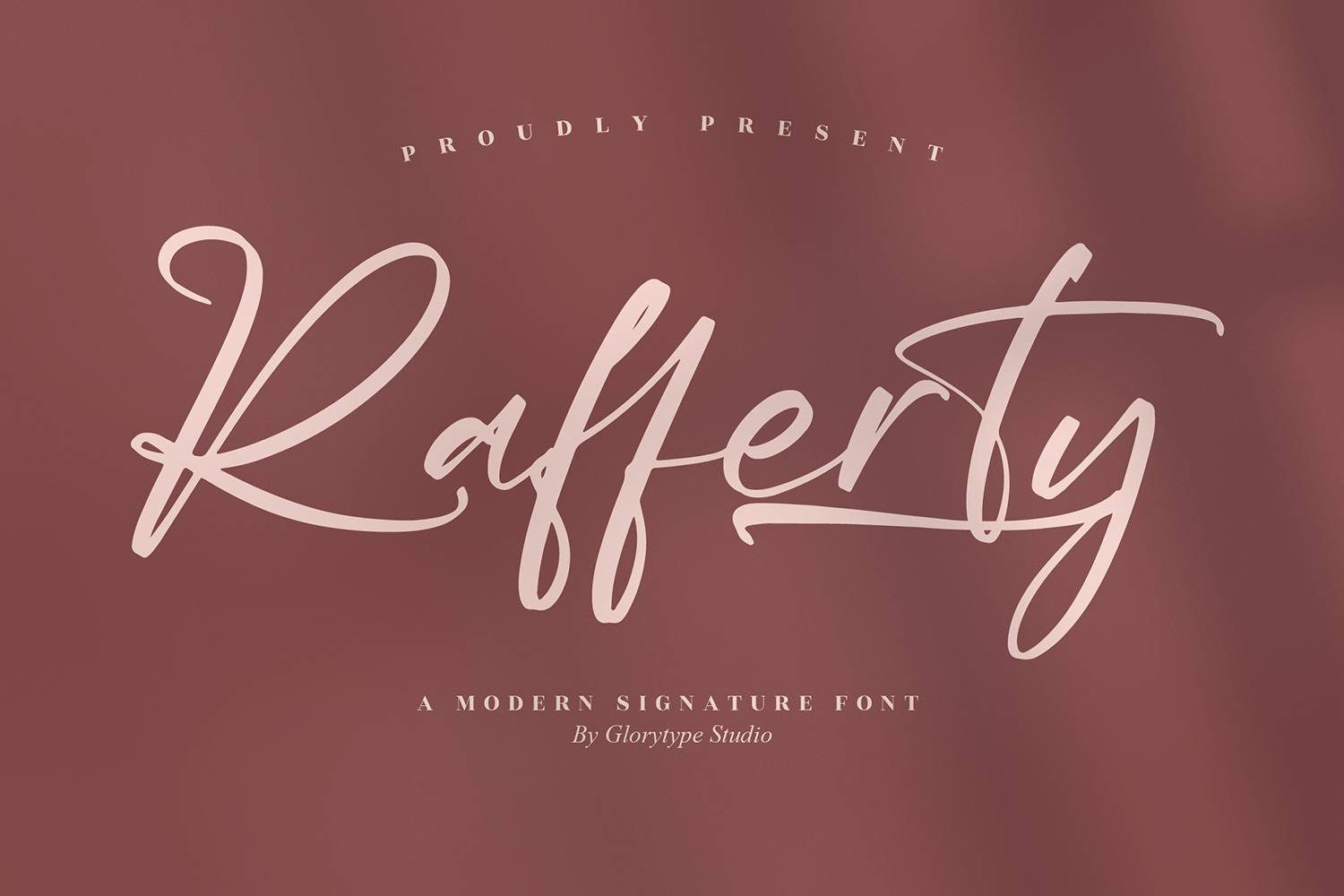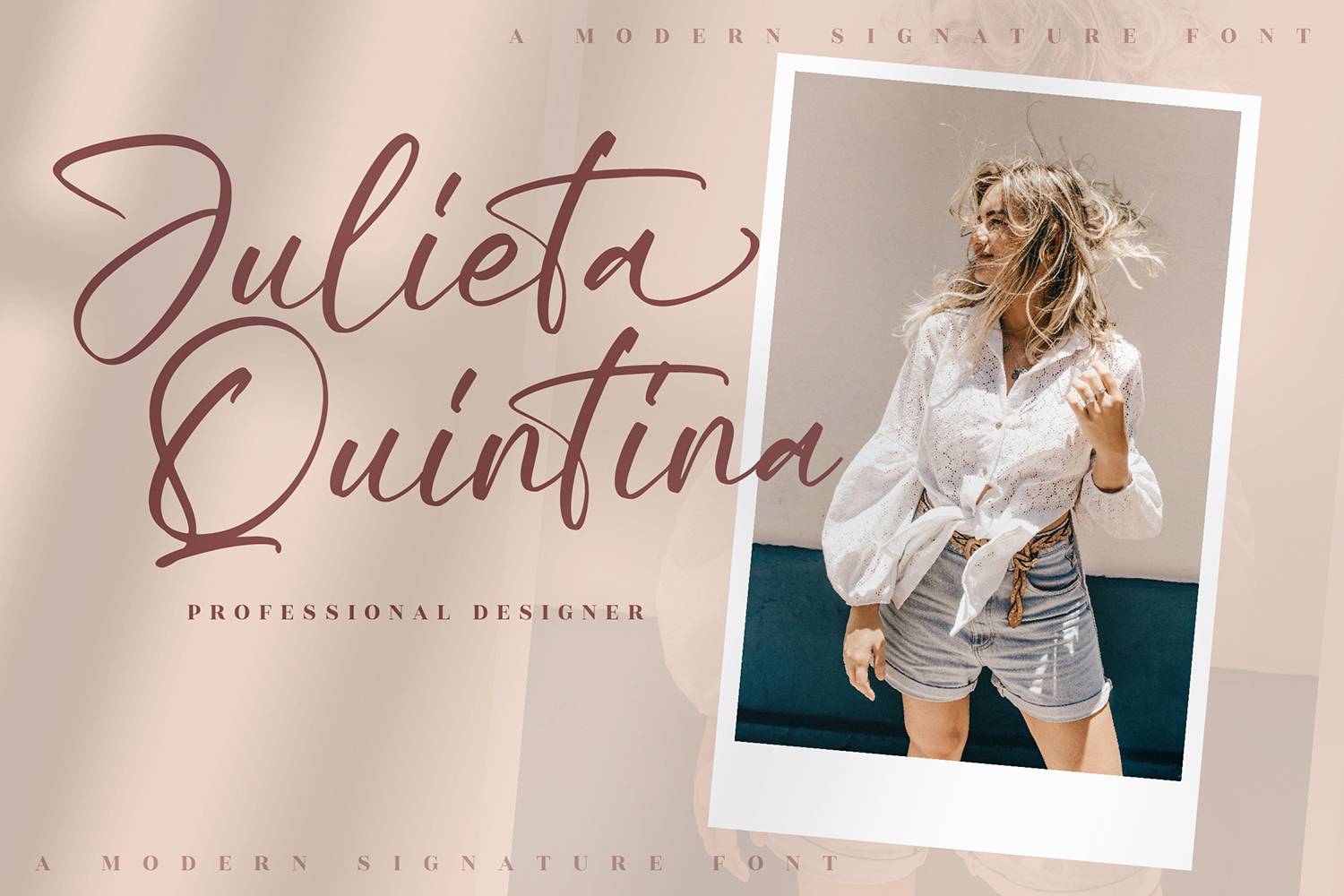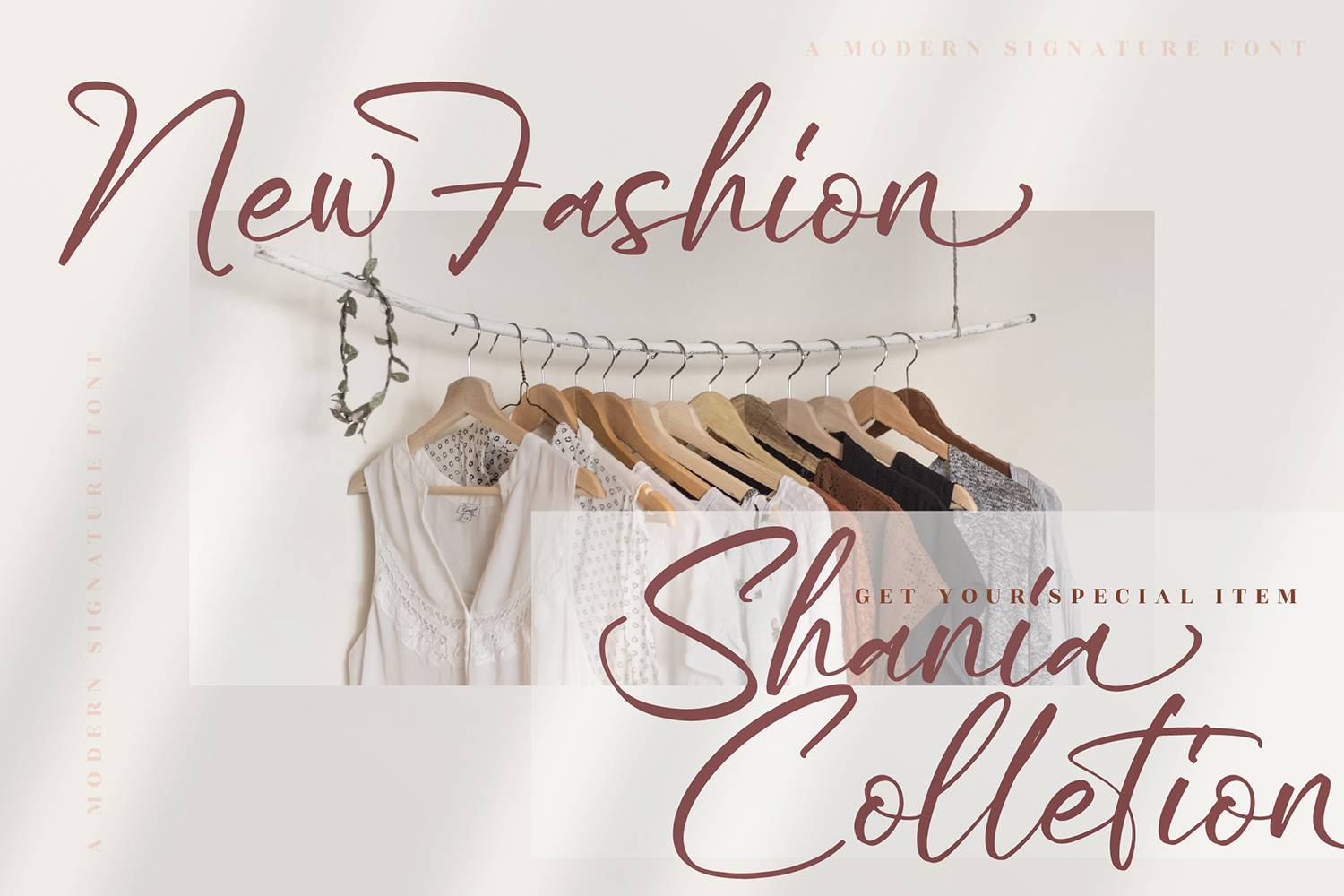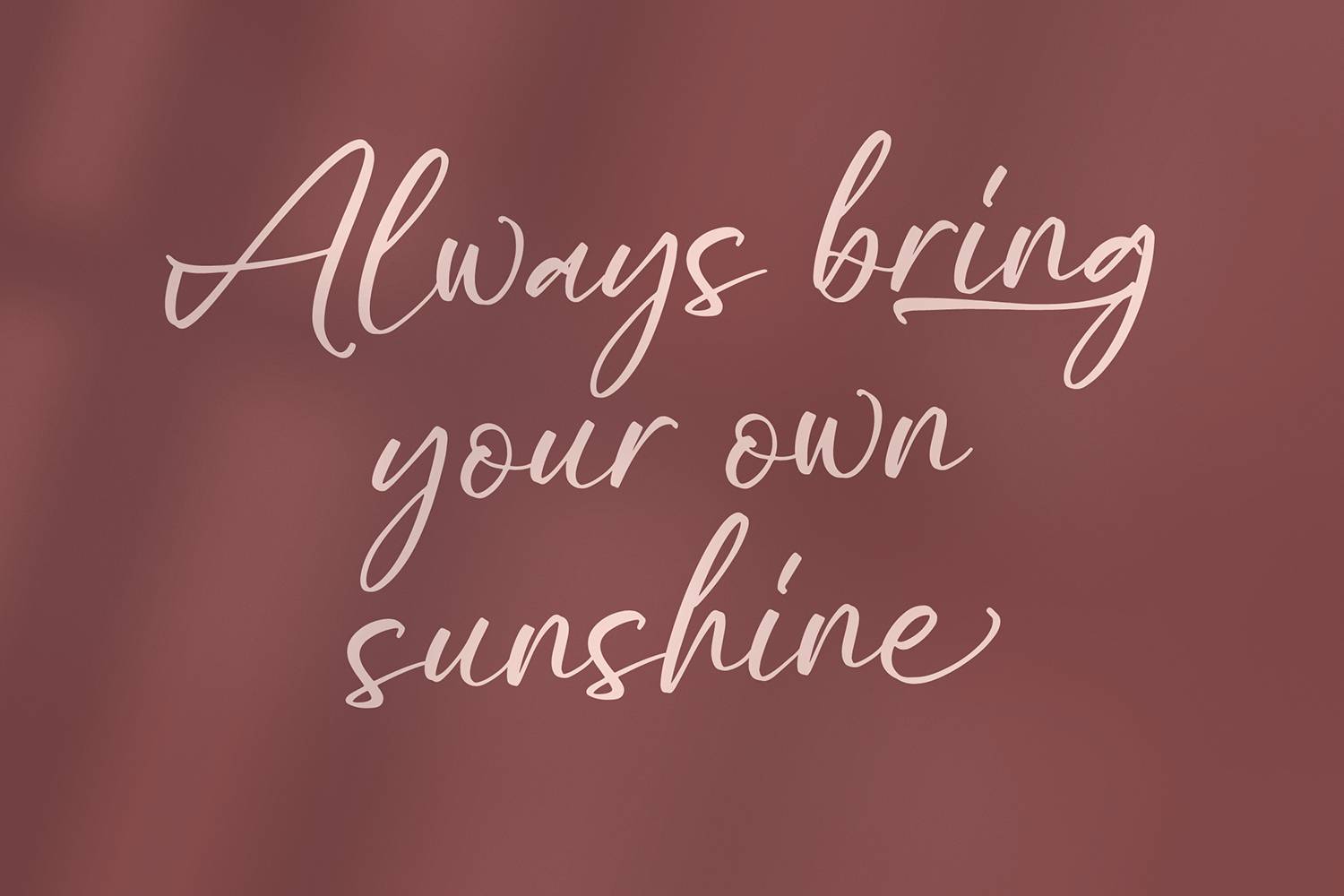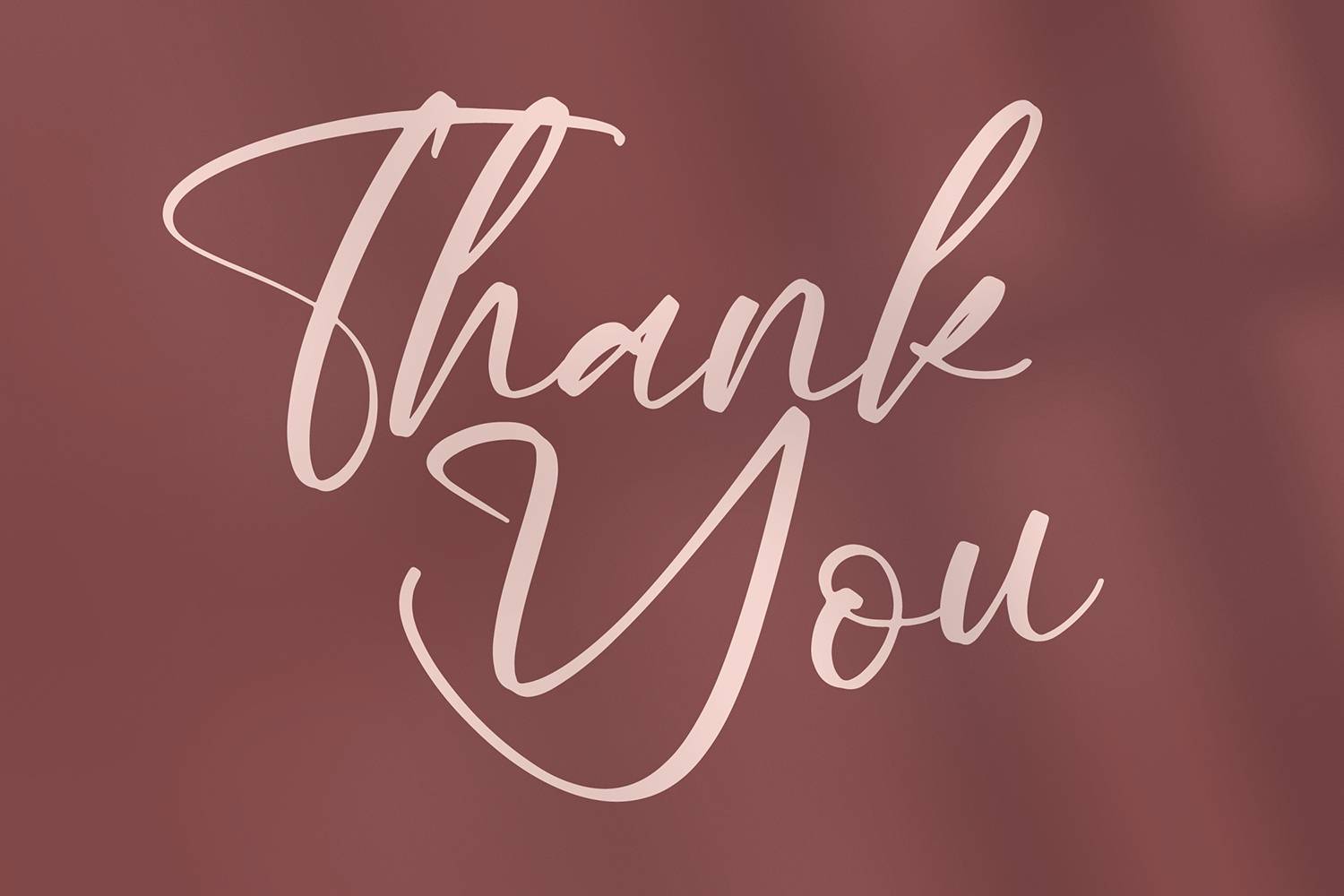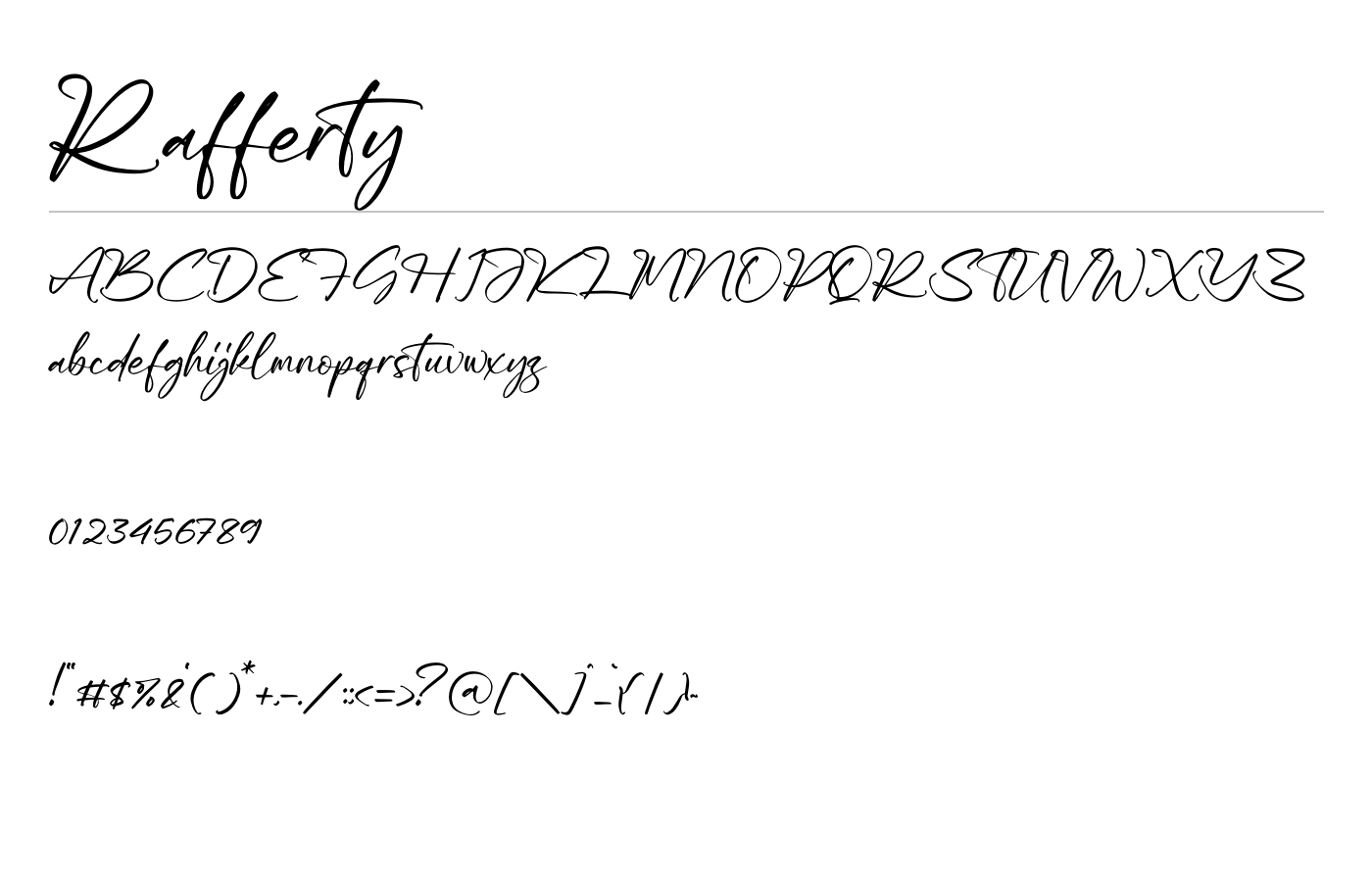
Rafferty is a graceful script font with a light, flowing style that mimics elegant handwriting. Its slender, slightly slanted strokes and delicate curves give it a refined yet approachable feel, making it ideal for invitations, branding, and decorative headlines where a personal, stylish touch is desired. This font works well in projects that need a sophisticated but friendly mood, such as wedding materials, fashion packaging, and creative editorial design.
Rafferty Font
About Rafferty Font